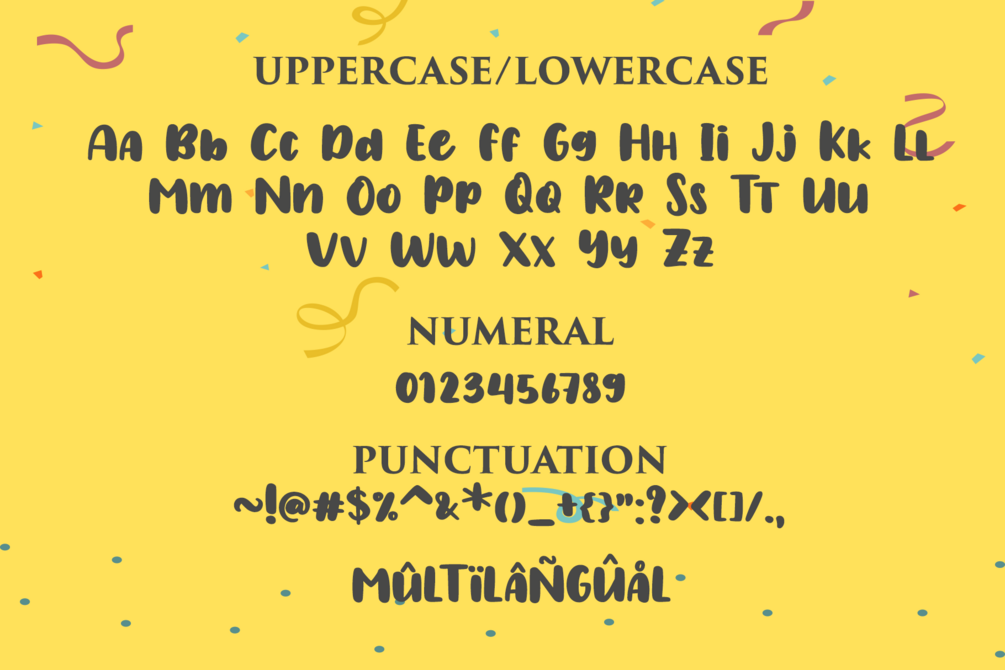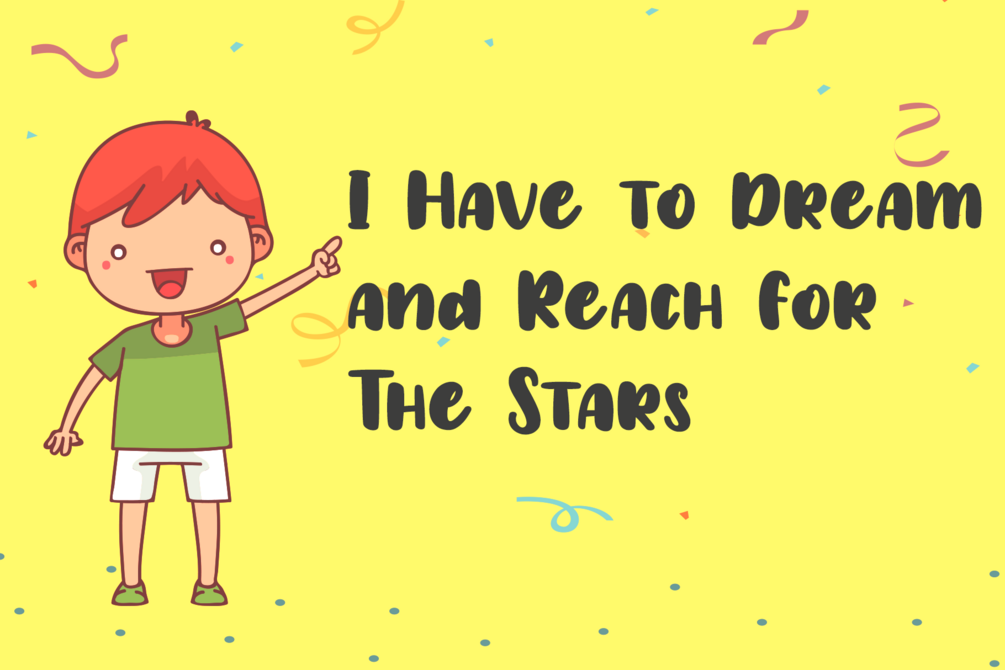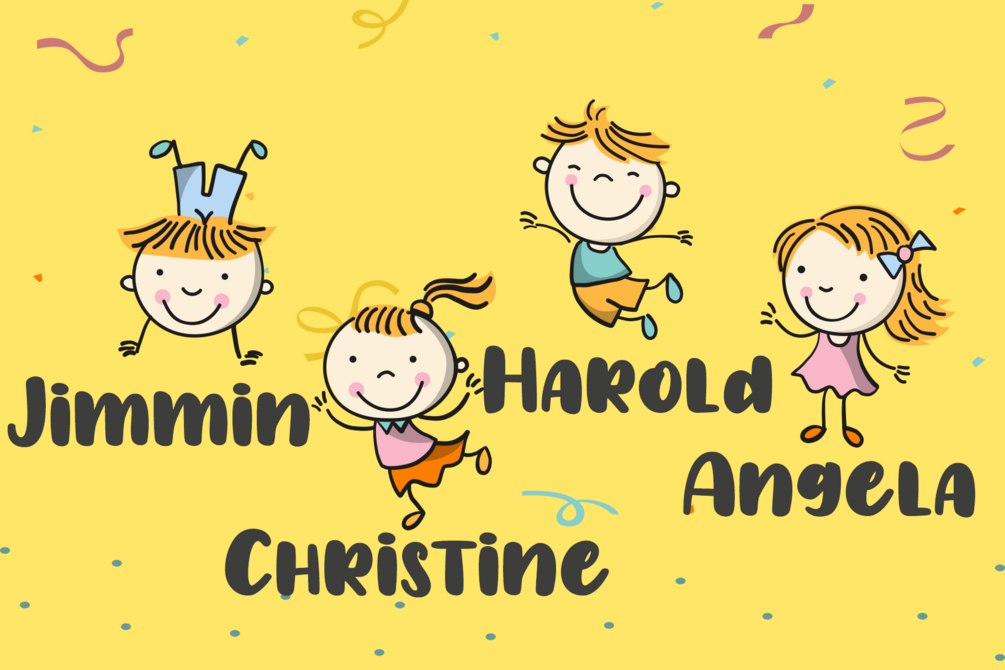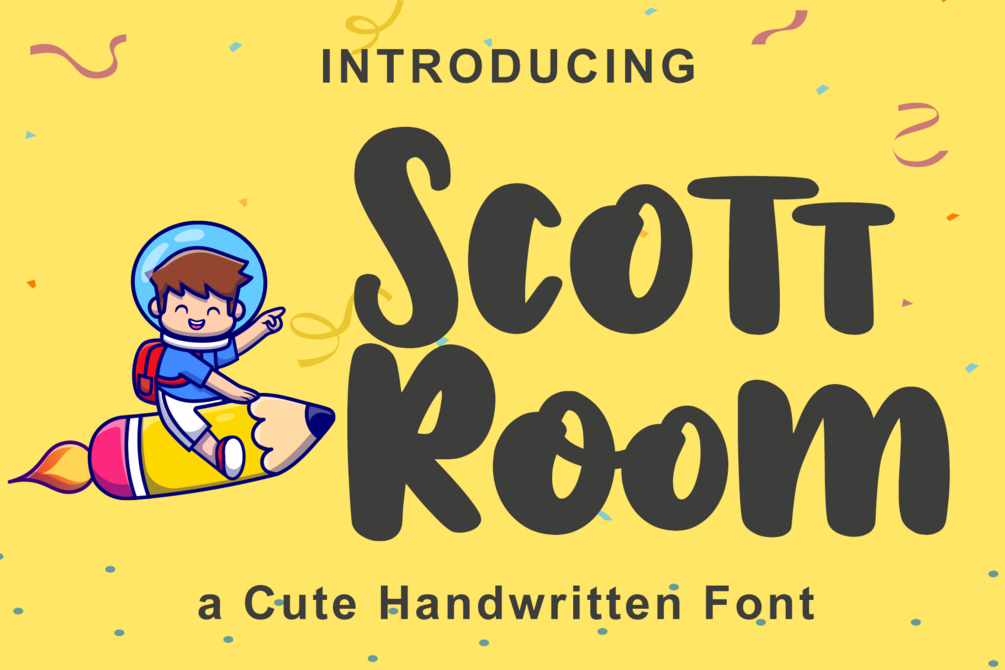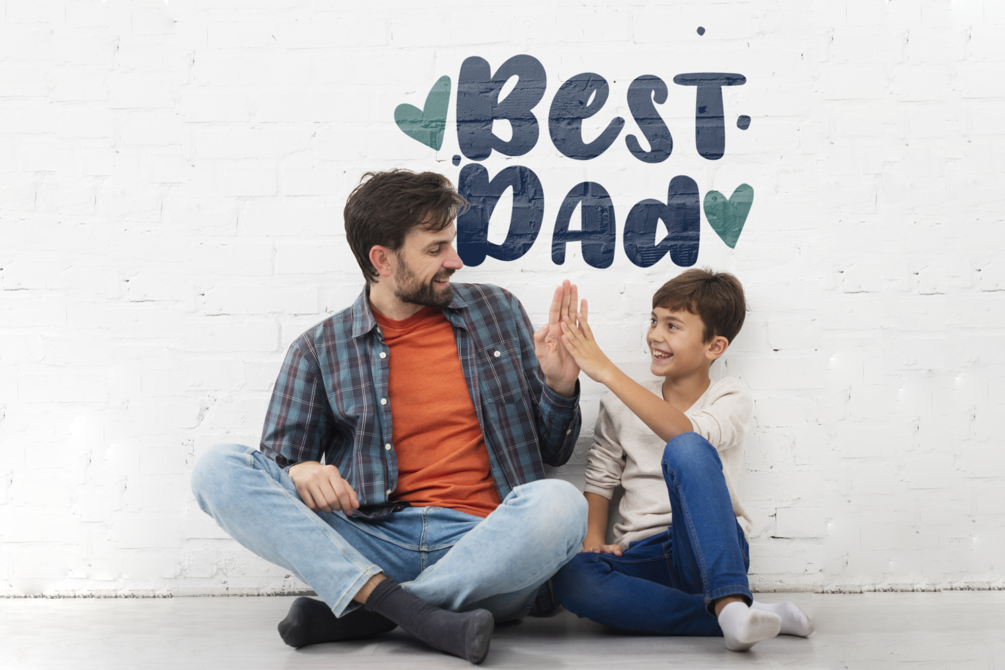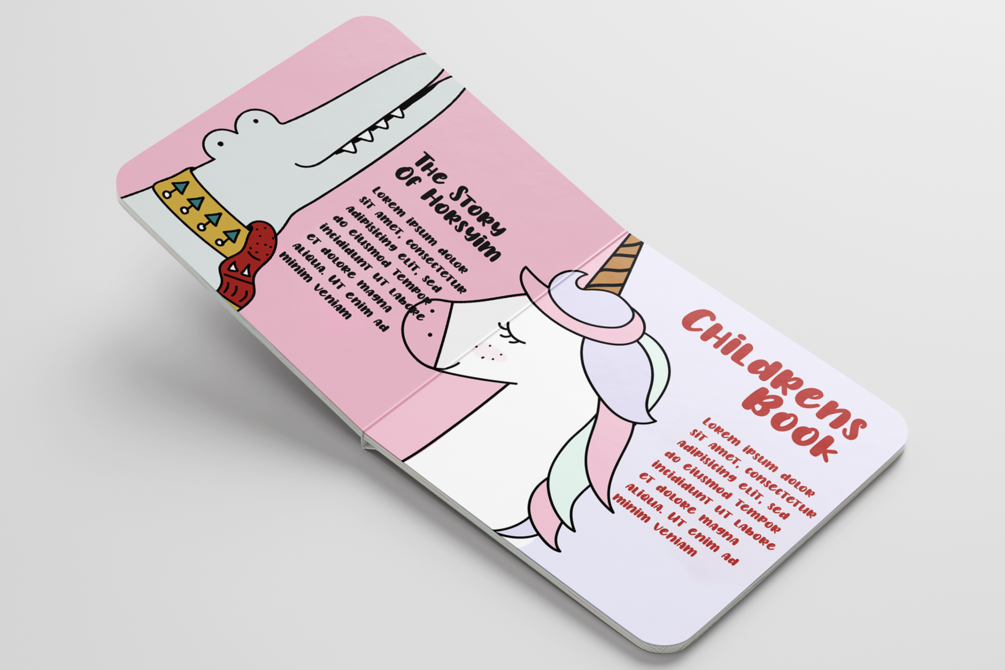
Scott Room
Scott Room is a playful handwritten script font full of cute charm and handcrafted warmth. Meticulously designed to become your true favorite, this adorable calligraphy font brings fun, joyful, and whimsical vibes to every project β perfect for kidsβ invitations, birthday cards, baby branding, greating cards, stickers, social media graphics, school projects, logos, mugs, Cricut crafts, and DIY designs.